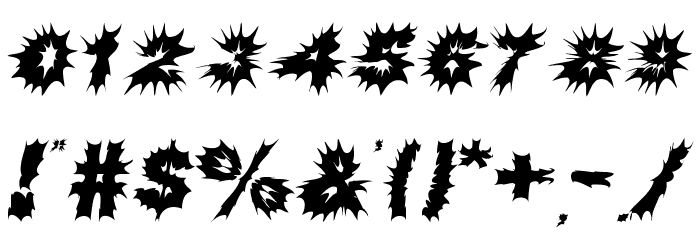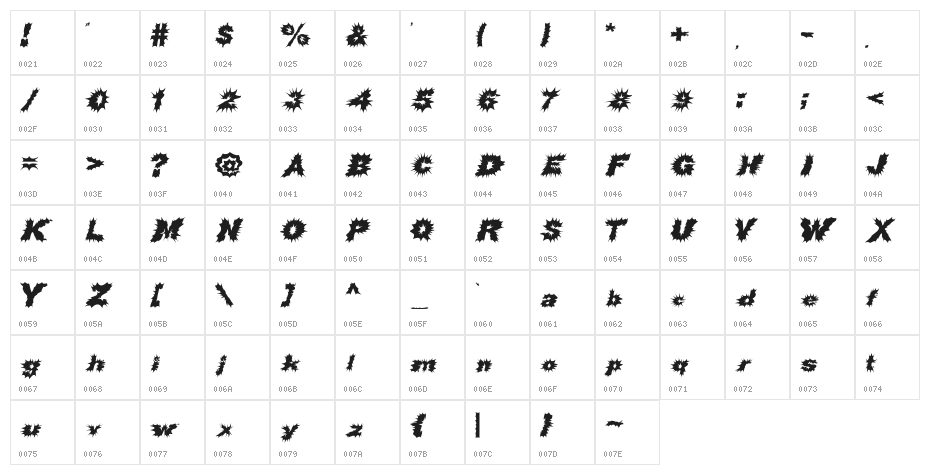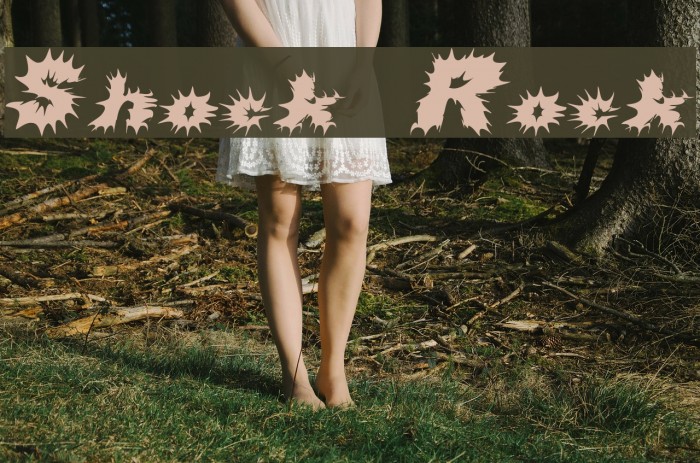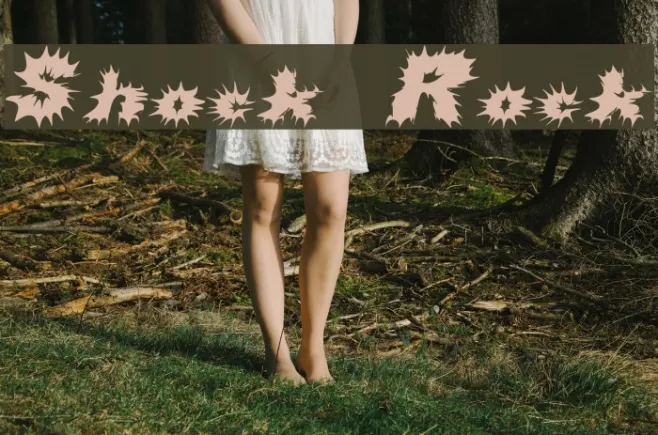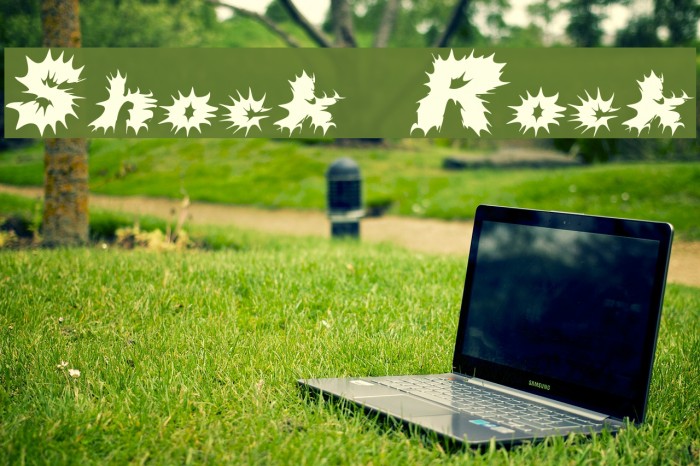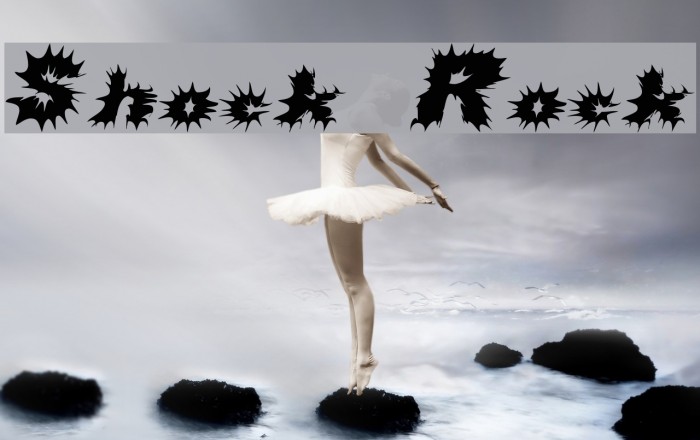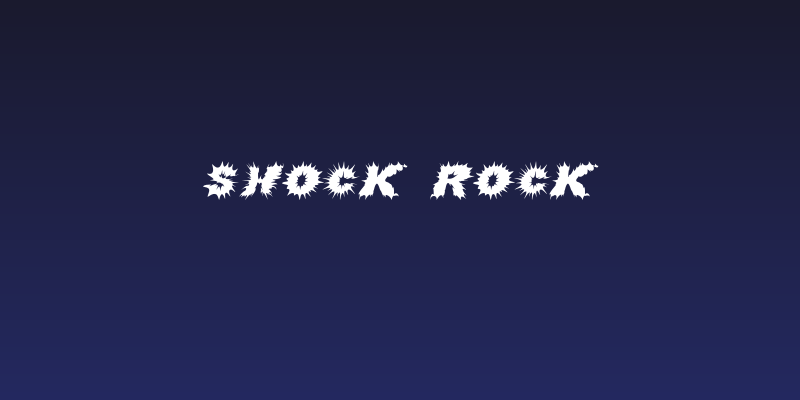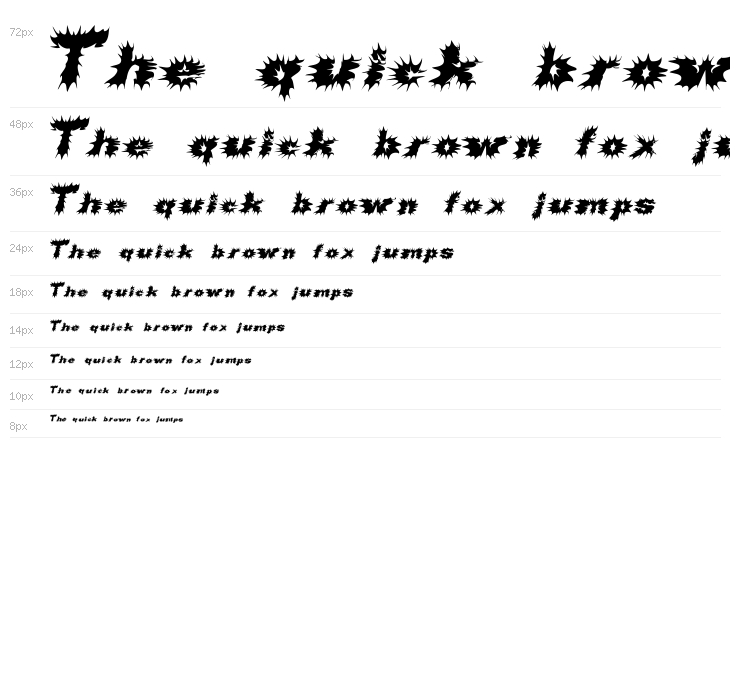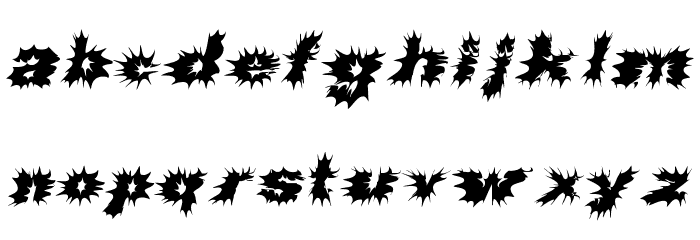
Shock Rock Font
Shock Rock Description
This font features a bold and jagged design, reminiscent of electric shocks or bursts of energy. Each character is uniquely styled with sharp, spiky edges, creating a dynamic and aggressive appearance. The uppercase and lowercase letters maintain a consistent theme, with the spikes varying in size and direction, adding to the chaotic yet controlled aesthetic. Numbers and special characters follow the same design principles, ensuring a cohesive look across all glyphs. The font's high contrast and distinctive style make it stand out, perfect for projects that require a bold statement.
| Overall Style | Modern, Aggressive |
| Proposed Projects | Ideal for music album covers, event posters, or branding for edgy, modern brands. |